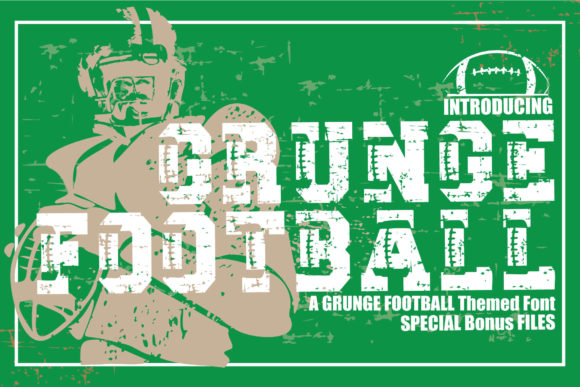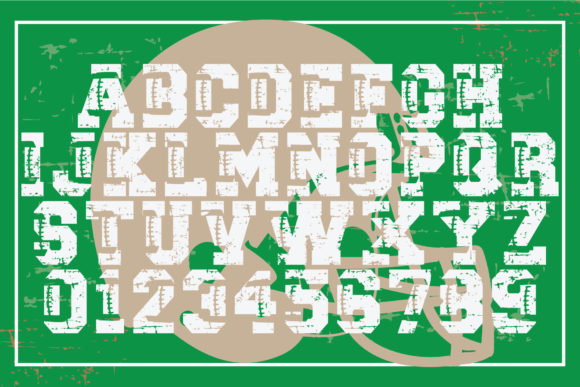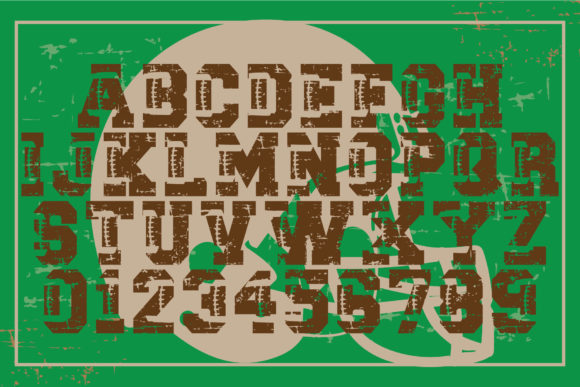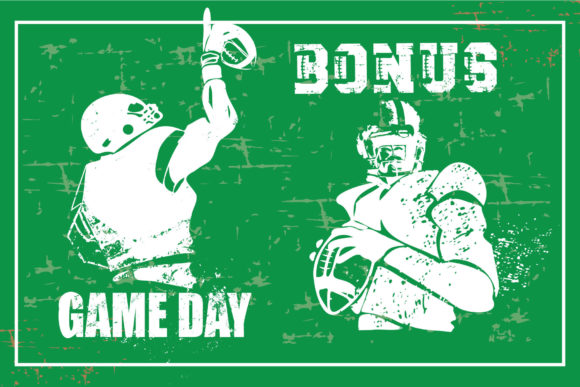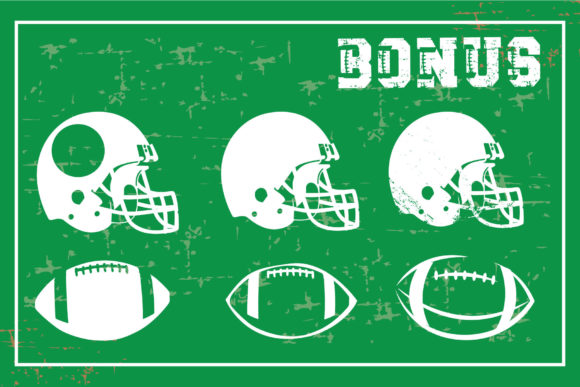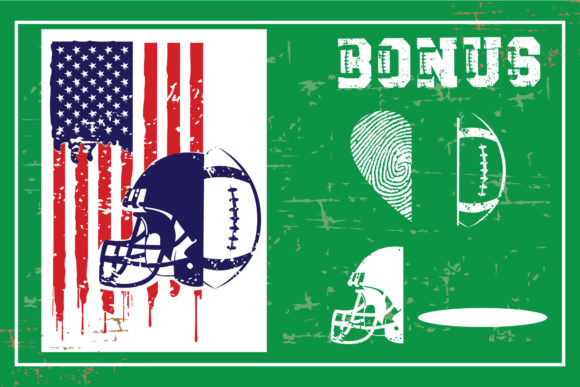
Grunge Football Font
Grunge Football is a bold and assertive display font. Sharp looking and cool, this font will truly inspire each of your works.
Use this font for each of your sports-related designs and explore its endless possibilities.